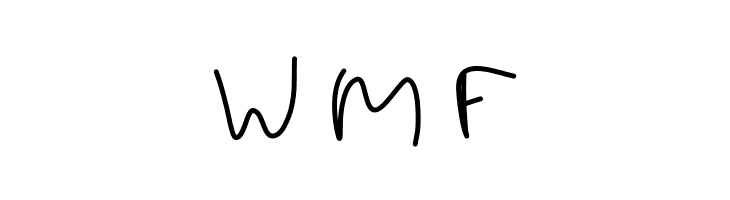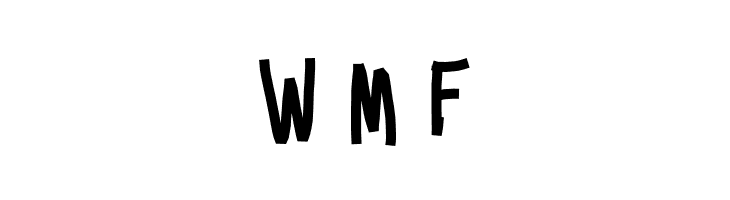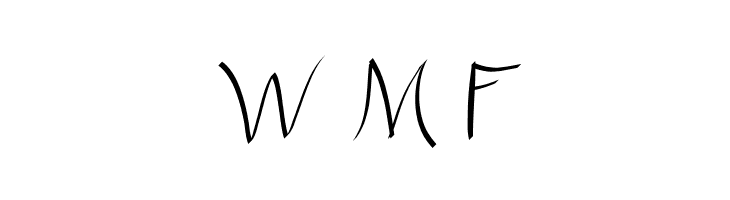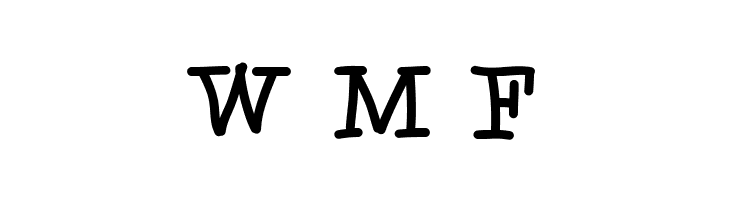
A playful, hand-drawn script font with a condensed and bold style.
A playful, hand-drawn serif font with bold, rounded serifs and irregular strokes.
A delicate, thin script font with elegant, flowing lines.
A dynamic, expressive font with tall, narrow letterforms and sharp strokes.
A playful, casual handwritten font with uneven strokes and dynamic lines.
An artistic calligraphic font with dynamic strokes and expressive curves.
A bold, hand-drawn font with thick, uneven strokes and a playful, energetic style.
A playful, handwritten font with a condensed and casual style.
A playful, hand-drawn font with rounded, bold characters and a casual style.
A wavy, trembling font with thin, irregular strokes for a dynamic look.